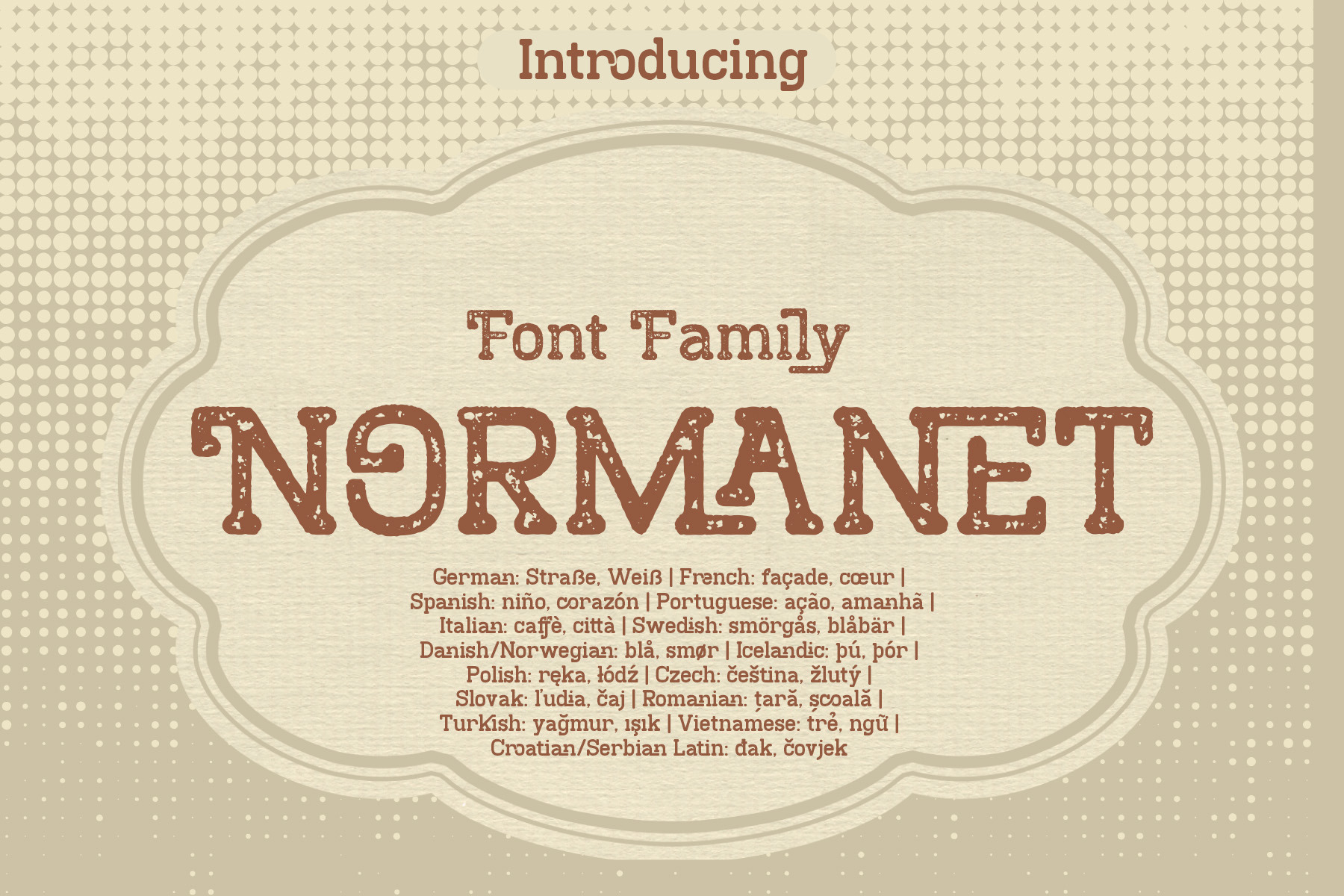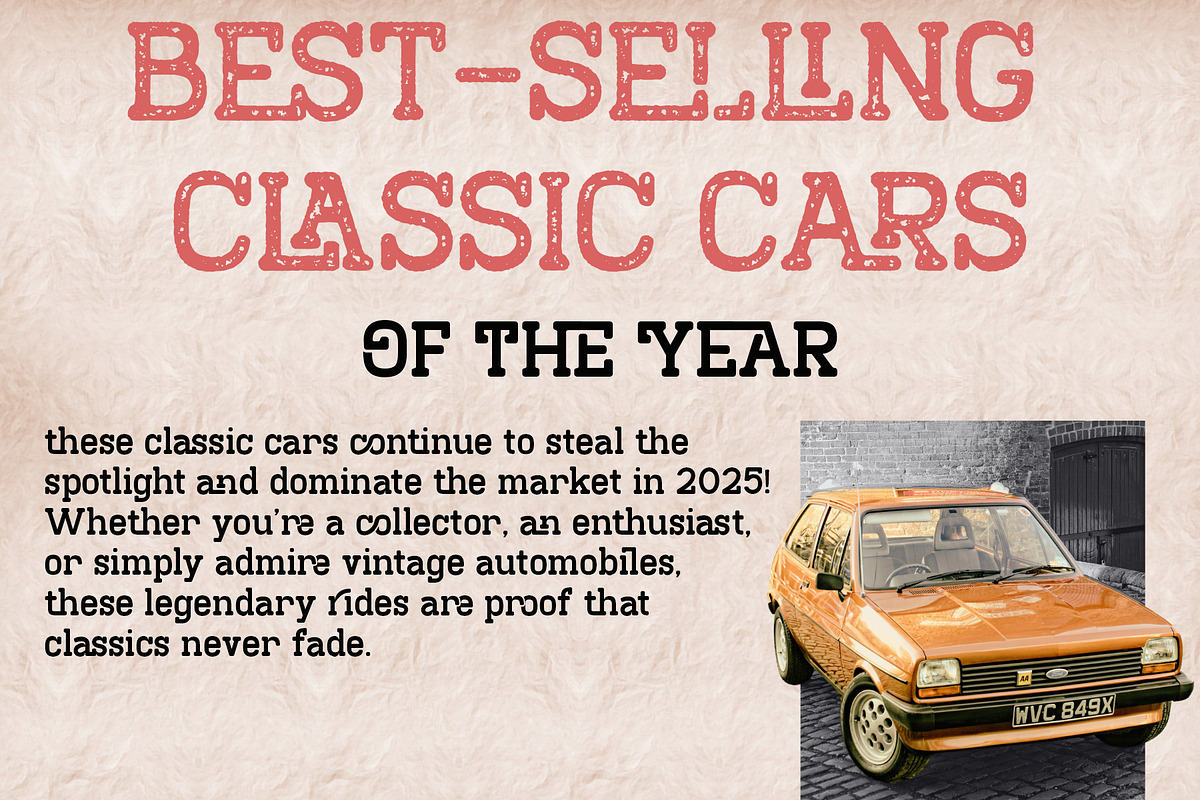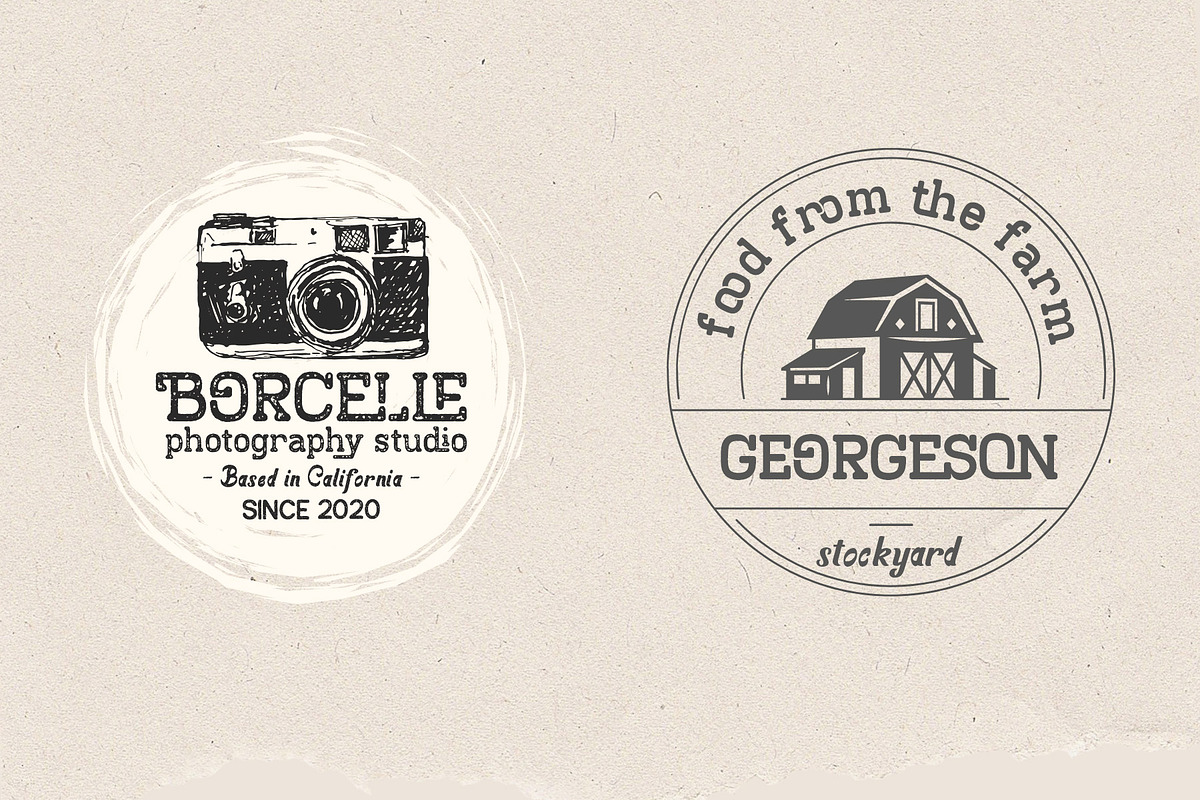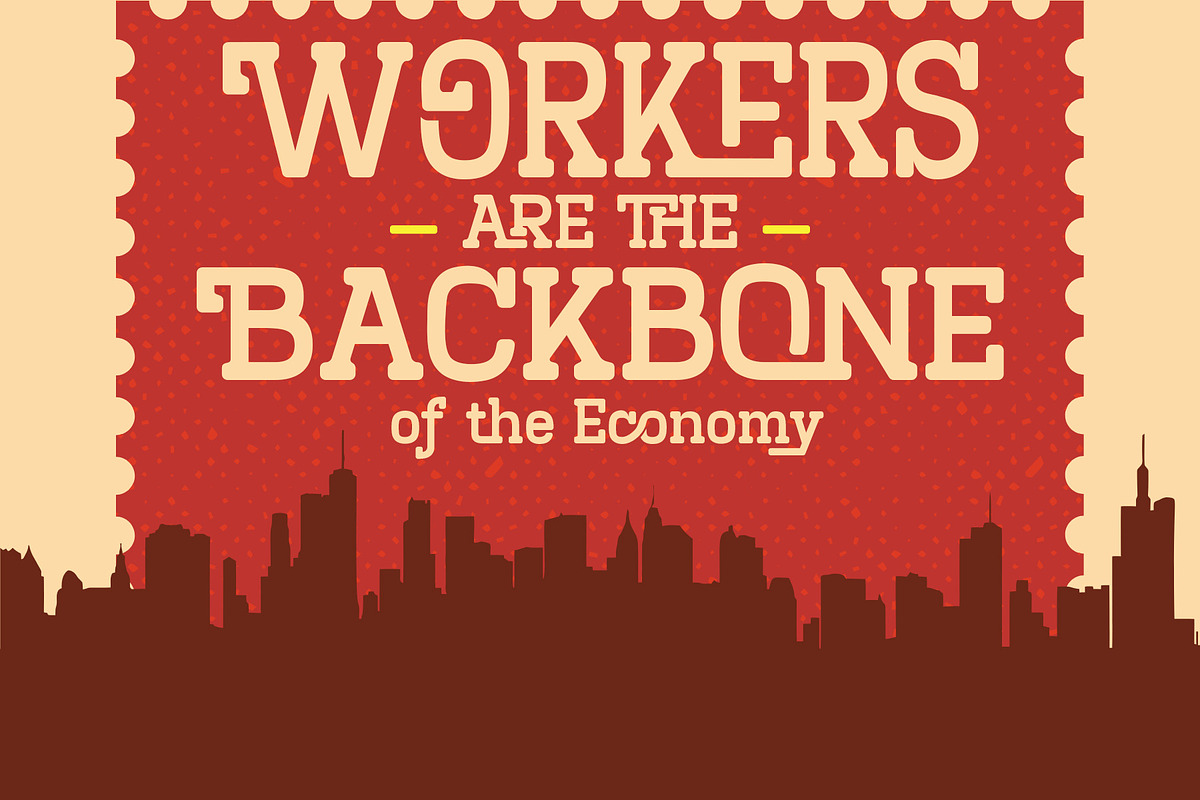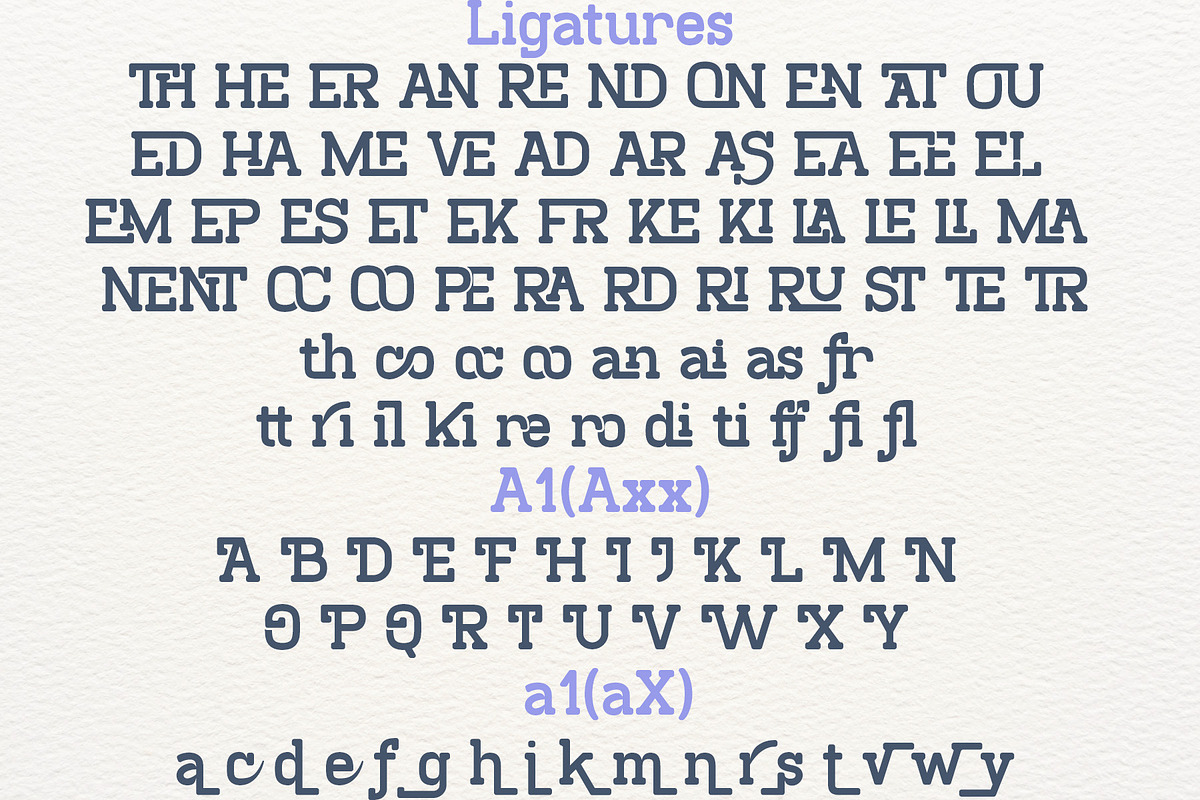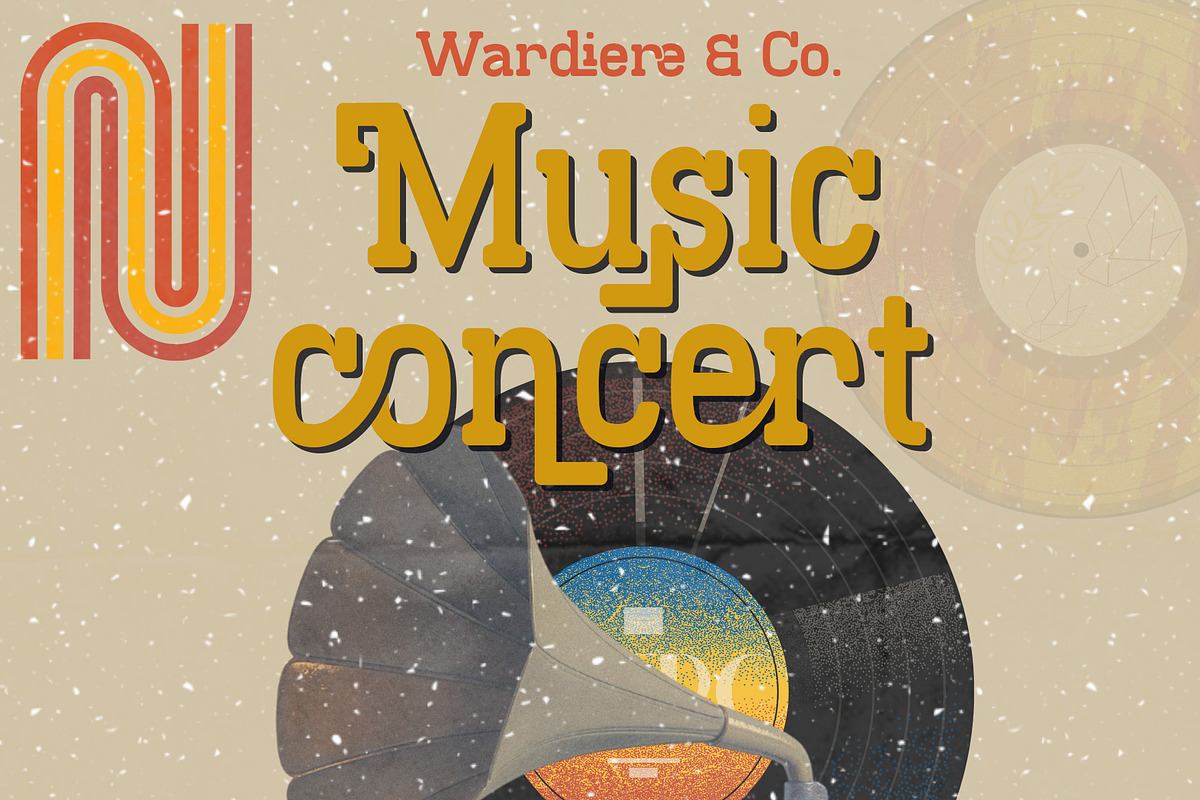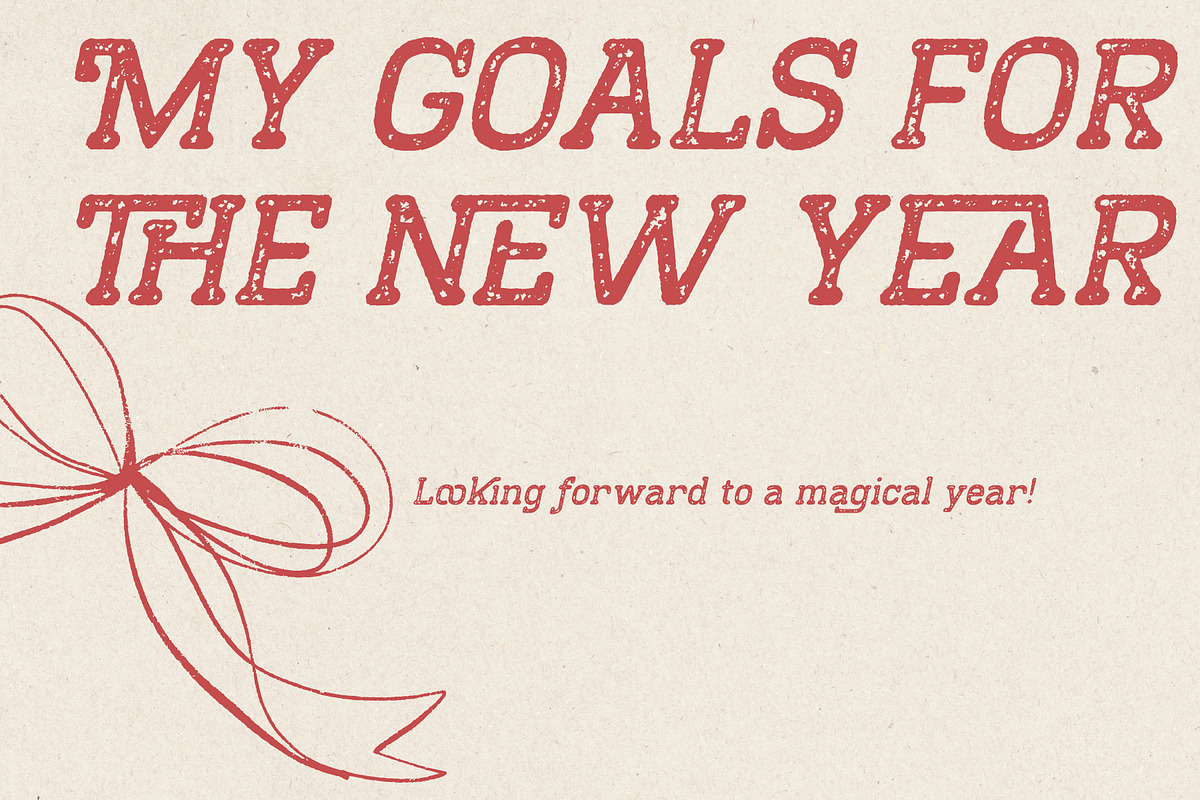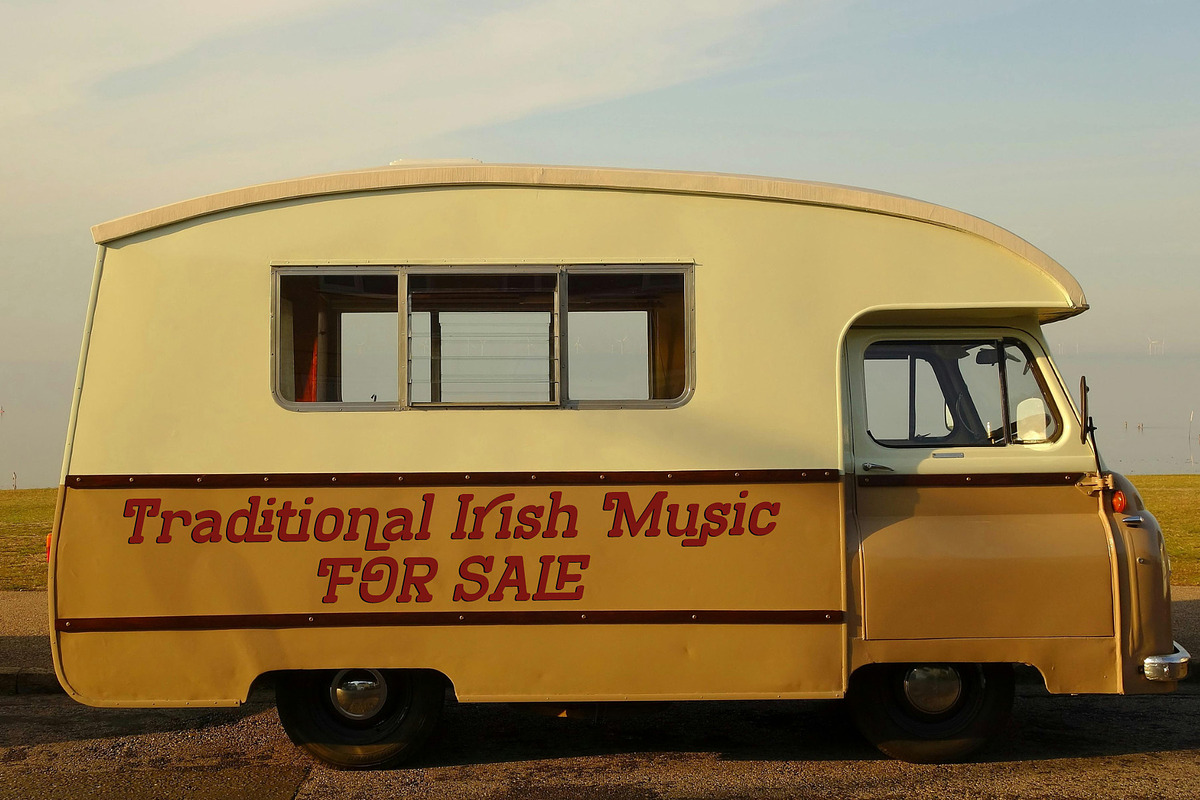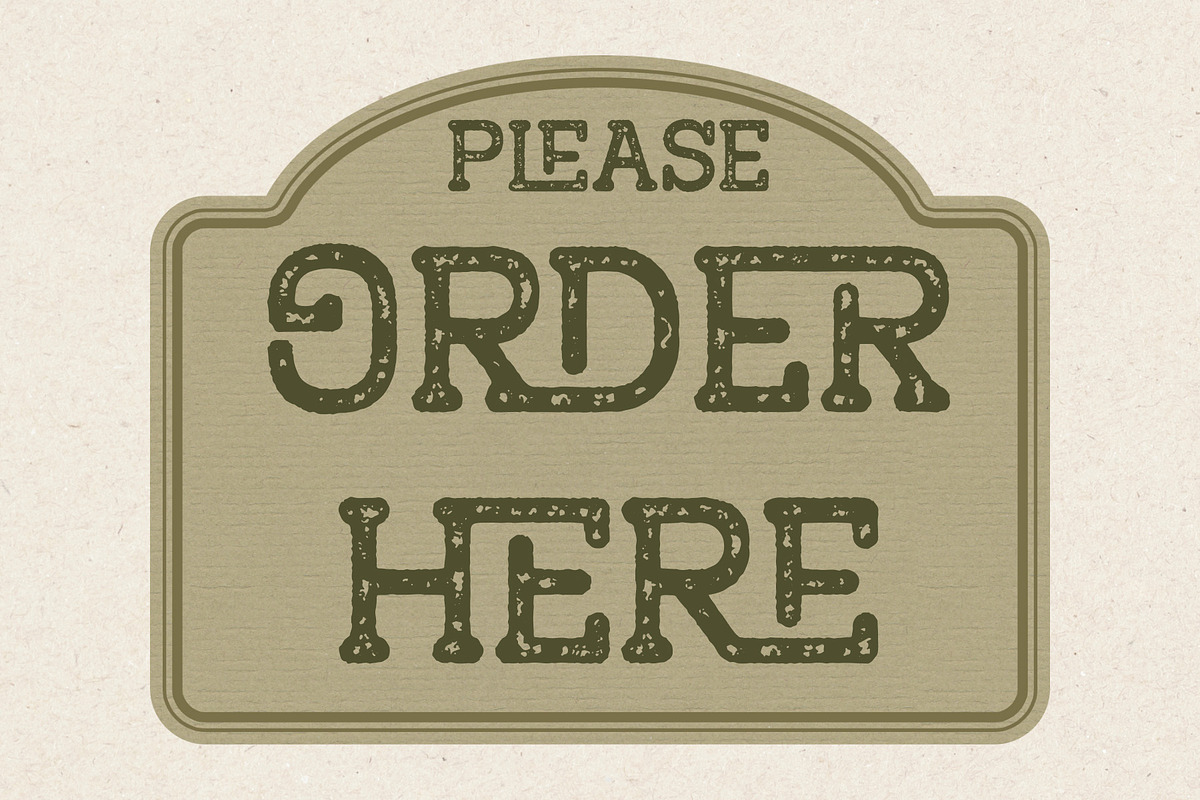
Normanet - Font Family
Normanet Font Family is a vintage-inspired display typeface that blends classic charm with a warm handcrafted feel. With its textured edges and sturdy letterforms, Normanet evokes the spirit of old packaging, retro signage, and traditional print design. The slightly distressed details give the font a timeless character, making it perfect for logos, labels, posters, branding, café menus, and nostalgic-themed designs.
Normanet is designed to bring personality and authenticity to your work while remaining clear and readable. Whether you're creating a retro brand identity or adding a vintage touch to modern layouts, Normanet helps your typography stand out with style and character.
If the software you are using does not fully support OpenType features (such as Stylistic Alternates), you can still access the decorative characters of the font using the following method:
Examples:
- Axx → Decorative A (if available)
- aX → Decorative a (if available)
And also:
- AxX → Decorative A2 (if available)
- aXX → Decorative a2 (if available)
- aXXX → Decorative a3 (if available)
To separate ligatures: Insert the shortcut xXx between two characters.
- ab → axXxb → a b